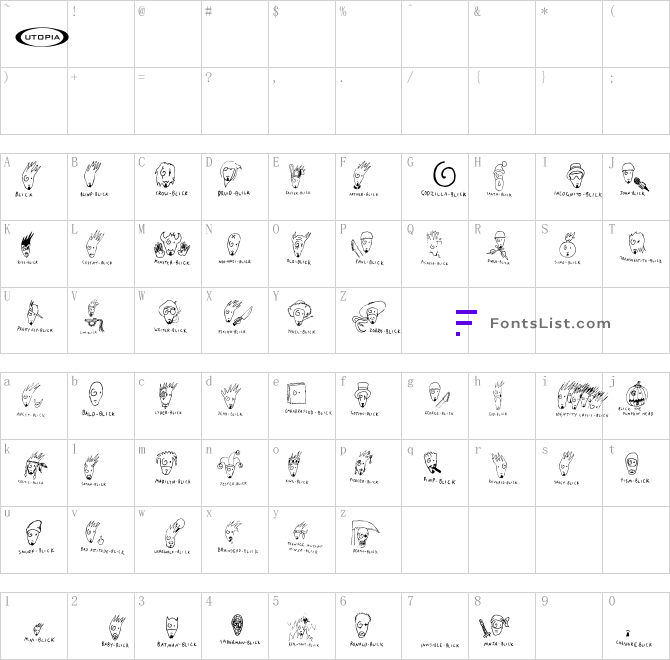
- Font Name:A Blick for All Seasons
A-Blick-for-All-Seasons.ttf is a very beautiful artistic font, A-Blick-for-All-Seasons.ttf is widely used in the design and printing of various books and pictures,A-Blick-for-All-Seasons.ttf has a strong visual impact,A-Blick-for-All-Seasons.ttf is a commonly used font in newspapers, magazines and books, and is used in posters, e-commerce Poster design, store design, logo design, font design and other fields.A-Blick-for-All-Seasons.